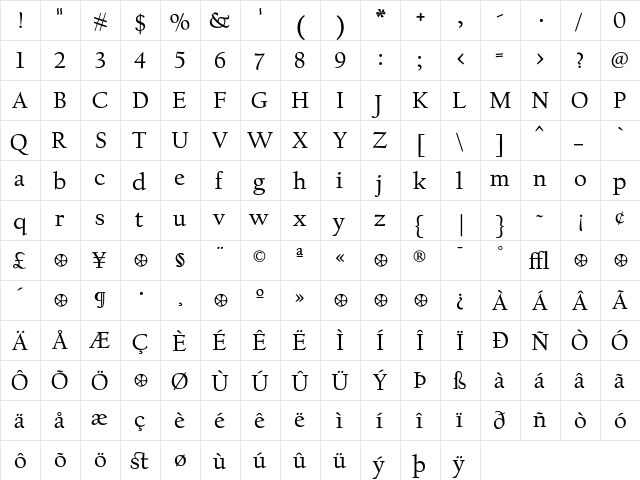
CalifornianText Roman
Design Context for CalifornianText Typeface
CalifornianText takes a measured approach to typography — its balanced proportions and neutral character make it a reliable workhorse for both digital and print work.